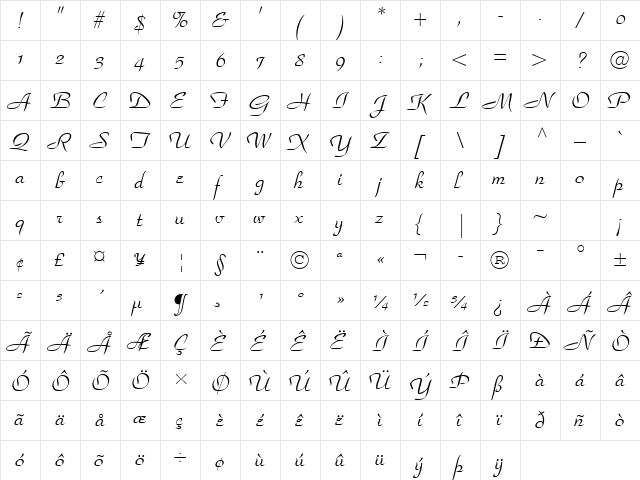
Park Avenue Script LH Regular
Design Context for Park Avenue Script LH Typeface
Park Avenue Script LH brings a calligraphic fluidity to the page — its connecting strokes and expressive curves give it an unmistakably human quality.
Font Pairing: Combine Park Avenue Script LH with a simple geometric sans for maximum contrast — the tension between flowing curves and clean structure is a classic typographic pairing.
Pro Tip: Pair Park Avenue Script LH with a clean sans-serif for supporting text. The contrast between fluid script and geometric structure creates an elegant typographic hierarchy.